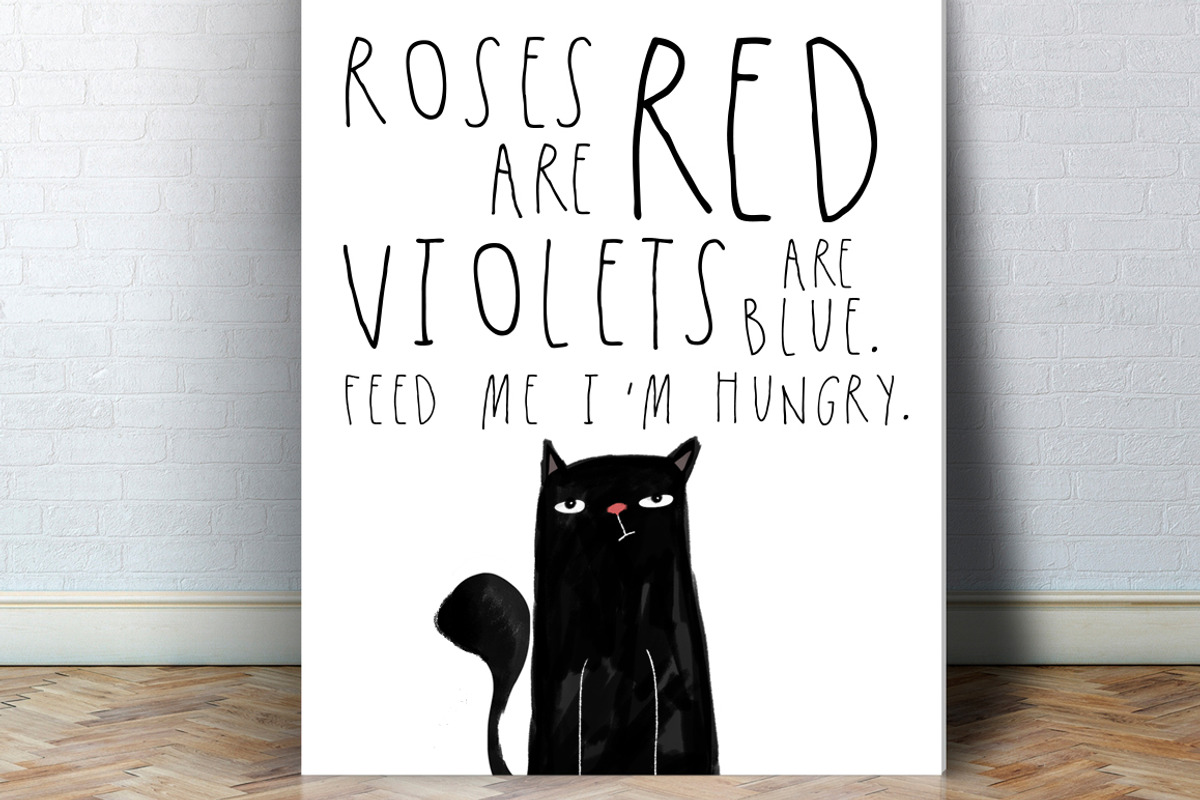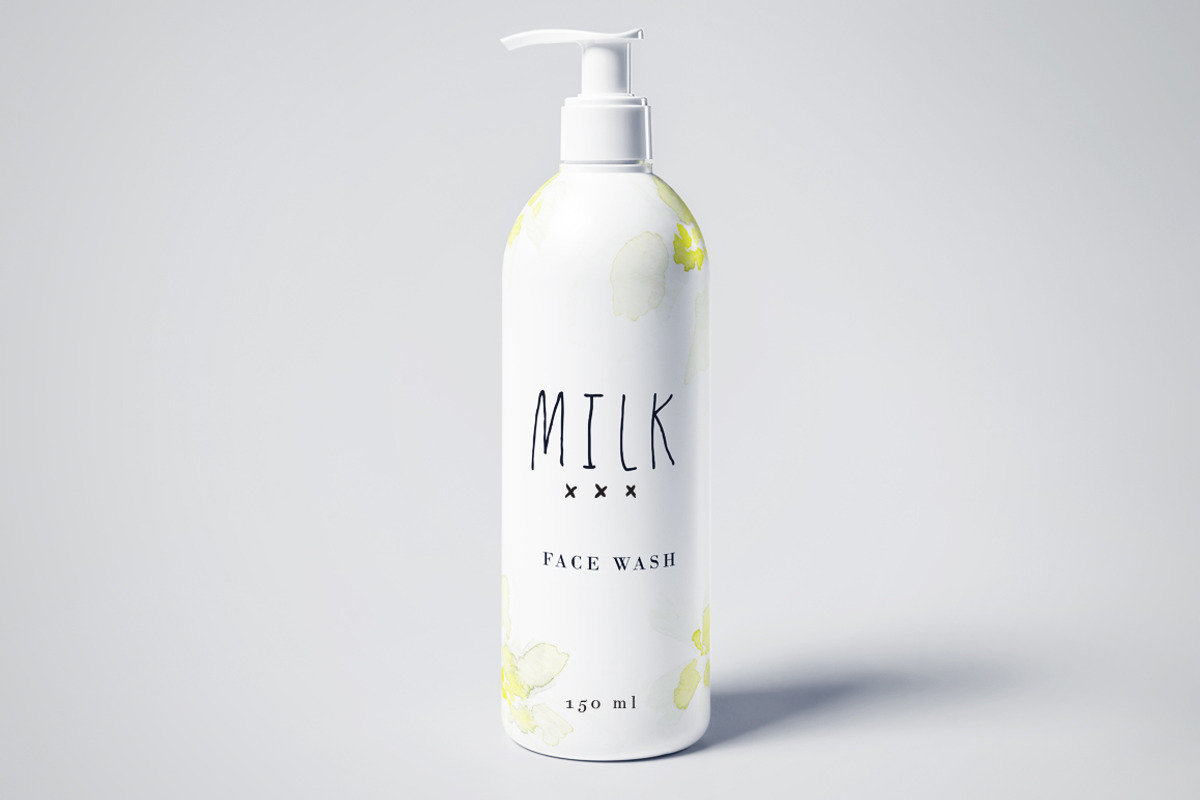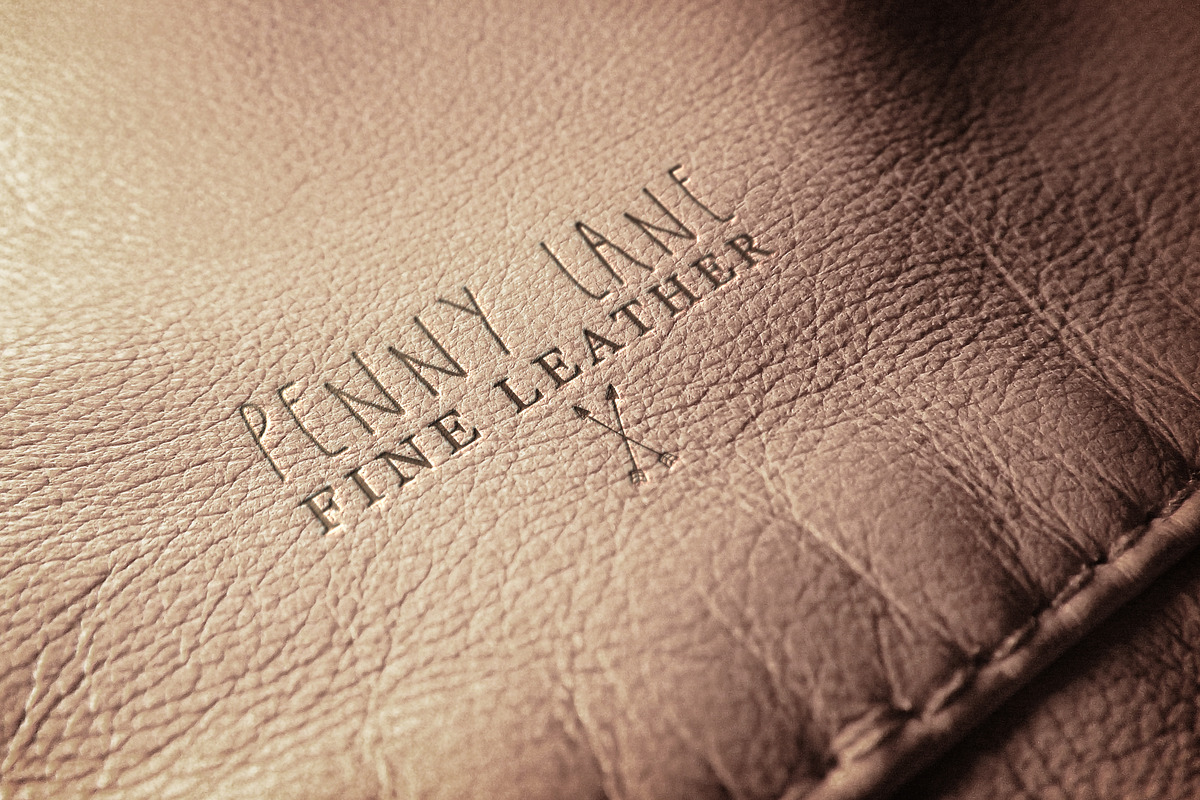
FRESSH typeface
FRESSH typeface by Shelly Laslo Illustration is a font selected for branding, posters, packaging, typography.
Why FRESSH typeface is worth a look
FRESSH typeface by Shelly Laslo Illustration fits naturally into Branding, posters, packaging, typography.